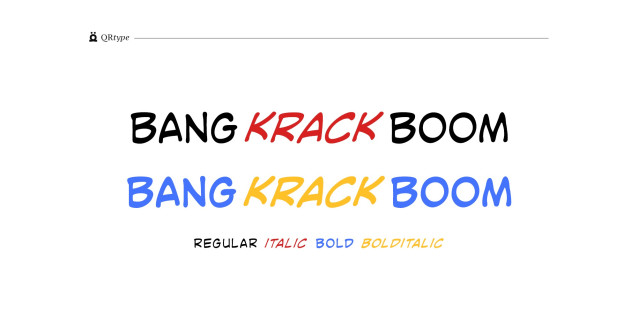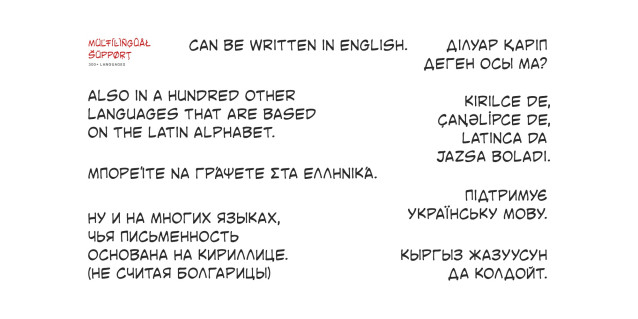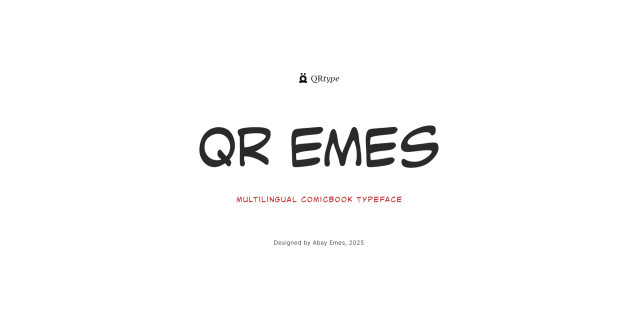
QR Emes Font
QR Emes Font – All uppercase typeface for comic book lettering. Supports extended Cyrillic, Green and extended Latin characters.
It has two stylistic sets:
Alternates for Cyrillic L and D.
Alternates for languages with dotless ı and i with dot (like Turkish)